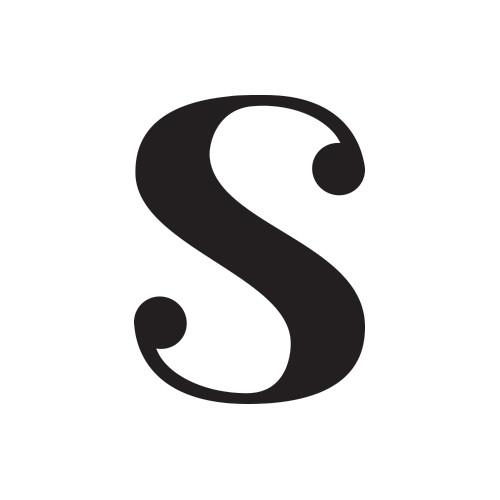
Foremost Font Description
Foremost is a classy and stylish serif font that looks incredibly nice in both large and small settings. It looks best we used as a display for headings and logos. Foremost’s clean lines and smooth curves give any project an extra touch of class.
This typeface is perfect for an elegant & luxury logo, book or movie title design, fashion brand, magazine, clothes, lettering, quotes, and so much more.